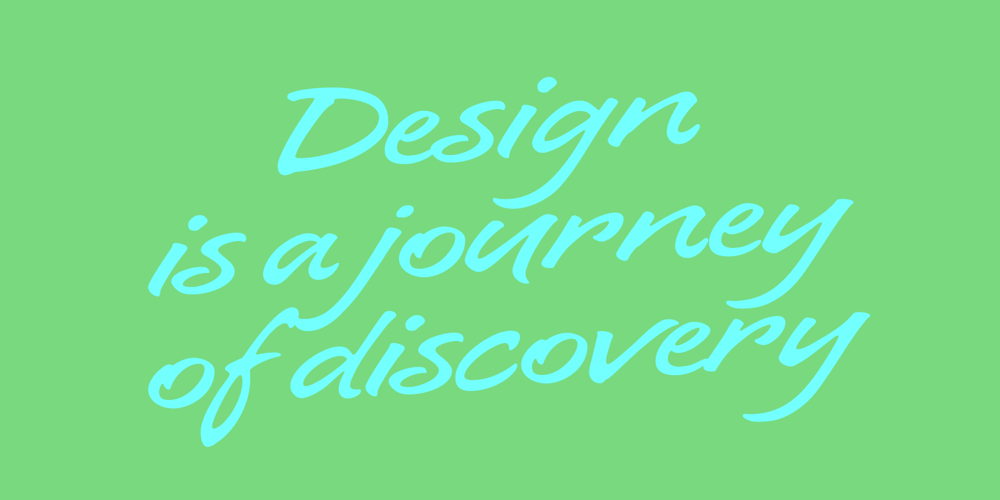
Pronto Font Family was designed by Alejandro Paul, Angel Koziupa and published by Sudtipos. Pronto contains 1 styles and family package options. Pronto is a fast and breezy calligraphic handwriting font that moves to a timeless beat. Its catchy rhythm and casually artful forms make it a choice font not only for packaging, but also for signs and café bistro boards and menus. Alternative forms for almost every letter are provided within the font. Pronto is a single feature-rich font that includes extra alternate characters, as well as a wide range of Latin-based languages, including Turkish and the languages of Central and Eastern Europe and the Baltic region. To take advantage of all the OpenType features included in the font, please use within programs that support such advanced typography. Designed by Koziupa and digitized by Ale Paul.